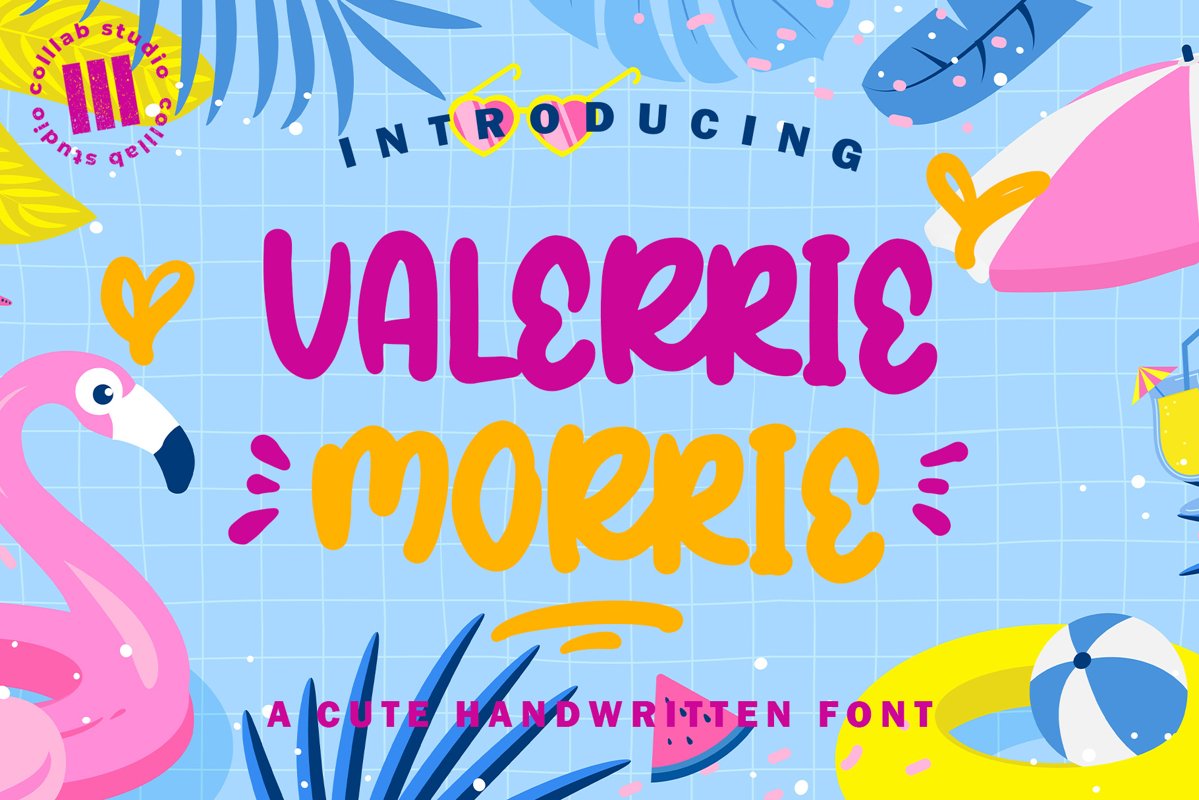
Valeerie Morrie - A Cute Handwriiten Font
Valeerie Morrie
Valeerie Morrie embodies fun, playful, and authenticity. This enchanting display font will turn any creative idea into a true standout.